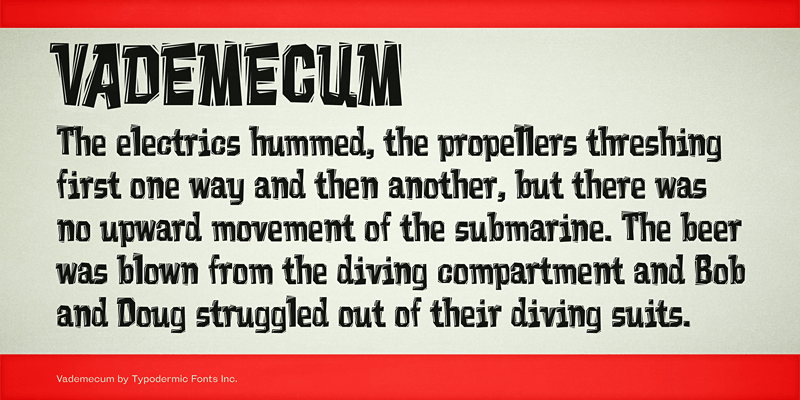
Preview and download Vademecum Font. Created by Typodermic Fonts in Fancy Distorted styles with 100% Free license.
Vademecum is a linocut font if by lino, you mean computer mouse. It’s a computer mouse cut font. This font includes a license that allows free commercial use: sometimes referred to as a desktop license. This allows you to install the font on a computer and use it to create posters, web graphics, game graphics, t-shirts, videos, signs, logos and more. Read the license agreement for details. If you'd like to embed this font in an app, ebook, on the web or anything that's not covered by the desktop license agreement, visit the link below. You'll find distributors who offer different types of licenses or you can contact me for help. http://typodermicfonts.com/vademecum/ |